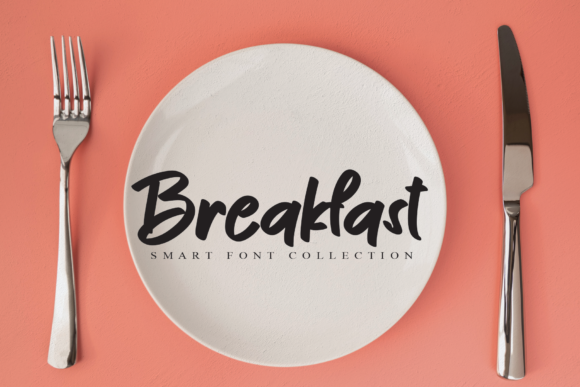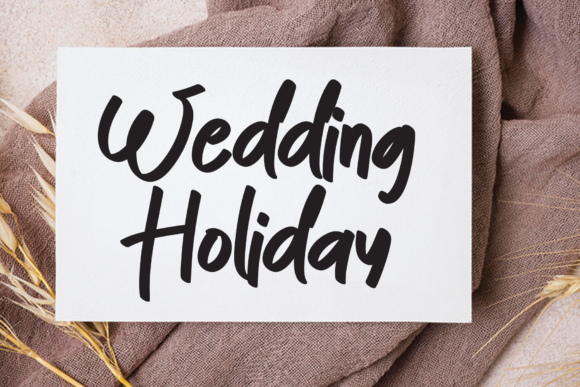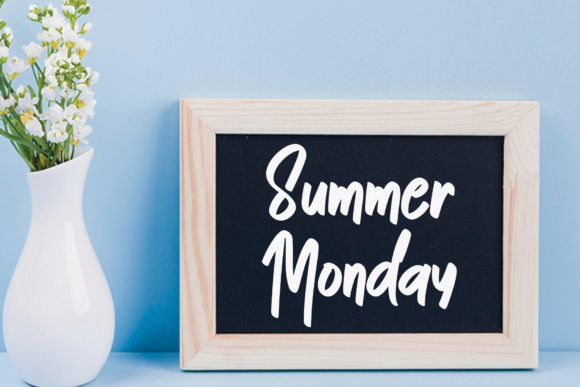
Introduction to Comeback Signature Font
Comeback Signature is a chic and relaxed handwritten font.
Whatever the topic, this font will be a wonderful asset to your font library, as it has the potential to enhance any creation .
Key Features of Comeback Signature Font
Why Choose Comeback Signature Font?
Comeback Signature Font offers exceptional quality and versatility, making it a valuable addition to your design toolkit. Whether you’re creating for personal projects or commercial use, Comeback Signature Font delivers professional results.